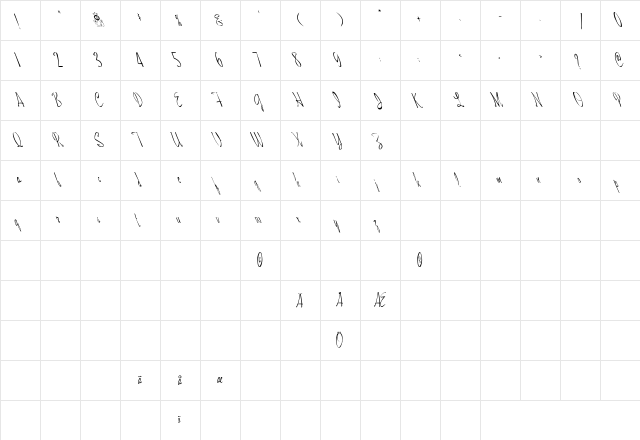
Maidstone Leftie Regular
Design Context for Maidstone Leftie Typeface
Maidstone Leftie is a composed and adaptable typeface that performs quietly and consistently across a wide range of design contexts.